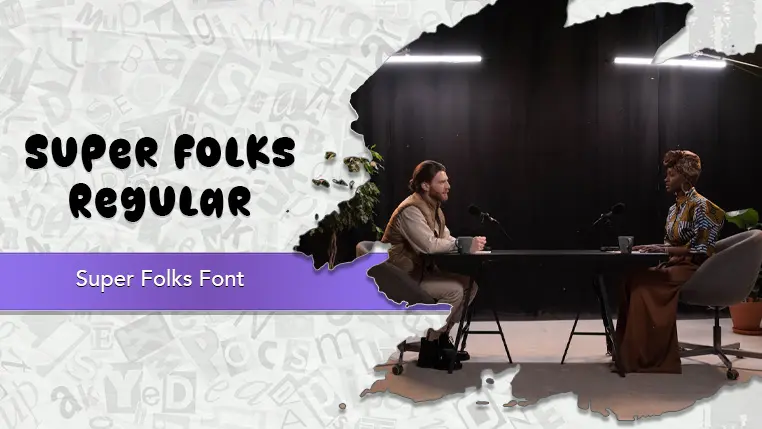
The Super Folks font family may be ideal for you if you enjoy working on an artistic design project. The lively, expressive look of this typeface, which was created by Francisco Suarez, makes it ideal for You can use this for Logos for personal blogs, podcasts, or YouTube channels, Children's Books Titles and headings. Party invitations and decorations for kids' birthdays, Branding for toys or kid-friendly products. Social media graphics that need a warm, inviting, or quirky look. Headlines, subheadings, or short phrases where you want to add personality without being overly formal. and other light-hearted visual projects.
Regular are the one primary font styles of the Super Folks font family. You may build dynamic, visually appealing text layouts with the distinct flair that each style offers. With crisp, readable lines and a relaxed tone.